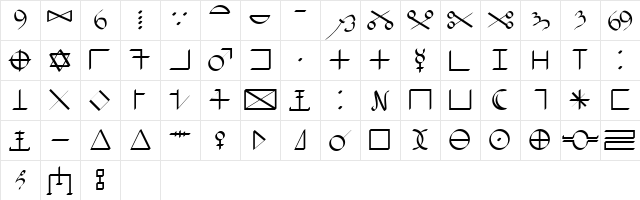
Haven Code Regular Free Font
Haven Code Regular
Designer: Jeff Lan
Design Context for Haven Code
Haven Code uses fixed-width spacing throughout, giving it the structured, systematic character associated with coding environments and technical documentation.
Pro Tip: Use Haven Code with slightly increased line-height for extended reading - fixed-width spacing can feel dense in longer passages without extra breathing room.